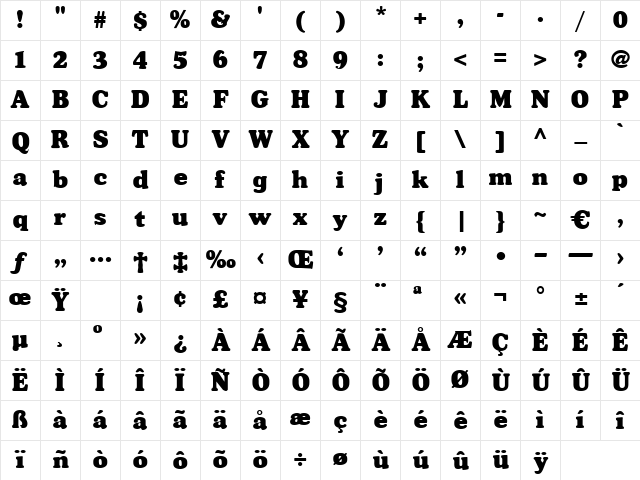
Trondheim Regular
Trondheim Family
Trondheim Regular
Design Context for Trondheim
Trondheim is a composed and adaptable typeface that performs quietly and consistently across a wide range of design contexts.